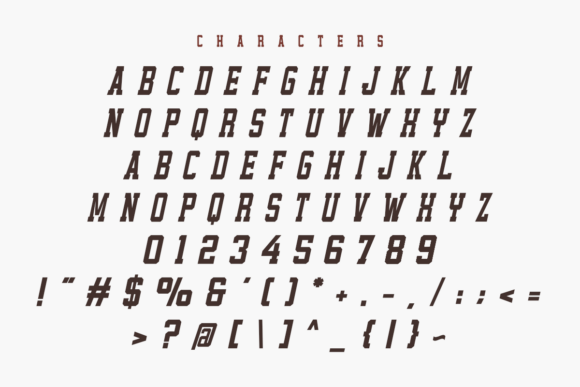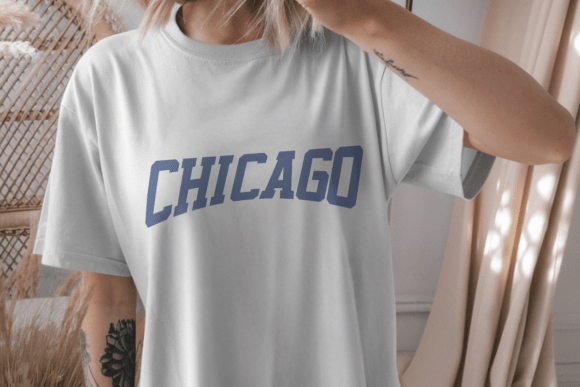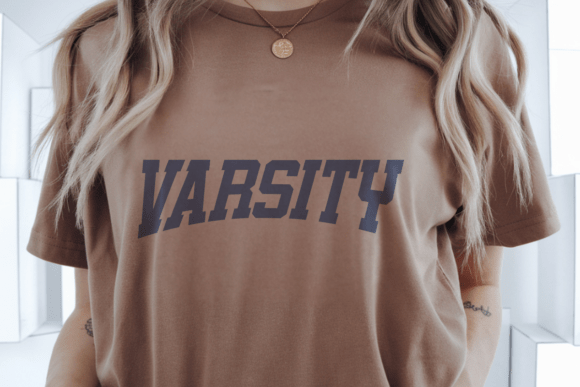
Athletic College Italic Font: Elevate Your Designs with a Classic Varsity Aesthetic
Are you a graphic designer or print on demand merchant looking for a font that embodies the spirit of university sports and team spirit? Look no further than the Athletic College Italic Font. This bold and powerful collegiate display font is designed to bring a classic varsity aesthetic to your modern creative projects. With its sturdy, blocky structure and clean lines, Athletic College excels in creating high-impact designs that command attention.
Key Features of Athletic College Italic Font
- Bold and Powerful Design: Athletic College is a statement font that makes a lasting impression. Its bold and powerful design is perfect for creating high-impact t-shirt designs, varsity jackets, sports jerseys, and spirit wear.
- Italic Style: The Athletic College font comes with an italic style, adding a touch of sophistication and elegance to your designs.
- Classic Varsity Aesthetic: This font captures the timeless spirit of university sports and team spirit, making it the perfect choice for designers and crafters who want to create nostalgic merchandise.
- Versatile Asset: Athletic College is not just limited to fashion. It’s a versatile asset that can be used for various craft projects, such as vinyl cutting with Cricut or Silhouette, personalized gift tags, and school event posters.
- Excellent Readability: The classic varsity style of Athletic College ensures excellent readability on both digital screens and print materials.
Athletic College Italic Font is perfect for graphic designers and print on demand merchants who specialize in custom apparel. With its sturdy, blocky structure and clean lines, this font excels in creating high-impact designs that command attention. Whether you’re building a professional brand identity for a fitness club or designing nostalgic merchandise for a local team, Athletic College provides the strength and clarity needed to make a lasting impression.
Use Cases for Athletic College Italic Font
- T-Shirt Designs: Create high-impact t-shirt designs that make a statement. Athletic College is perfect for designing custom apparel for sports teams, fitness clubs, and school events.
- Varsity Jackets and Sports Jerseys: Bring a classic varsity aesthetic to varsity jackets and sports jerseys with Athletic College. This font is perfect for creating bold and powerful designs that command attention.
- Vinyl Cutting and Craft Projects: Use Athletic College for vinyl cutting with Cricut or Silhouette, personalized gift tags, and school event posters. This font is a versatile asset that can be used for various craft projects.
- Digital Designs: Athletic College is not just limited to print materials. Use this font for digital designs, such as social media graphics, website headers, and email templates.
Why Choose Athletic College Italic Font?
There are many fonts available that claim to offer a classic varsity aesthetic, but Athletic College Italic Font stands out from the rest. Here are a few reasons why:
- Unique Design: Athletic College has a unique design that sets it apart from other fonts. Its sturdy, blocky structure and clean lines make it perfect for creating high-impact designs.
- Excellent Readability: The classic varsity style of Athletic College ensures excellent readability on both digital screens and print materials.
- Versatility: Athletic College is a versatile asset that can be used for various design projects, from fashion to craft projects.
| Author | Almairatype Studio |
Athletic College Italic Font is a bold and powerful collegiate display font that brings a classic varsity aesthetic to your modern creative projects. With its sturdy, blocky structure and clean lines, this font excels in creating high-impact designs that command attention. Whether you’re a graphic designer or print on demand merchant, Athletic College is the perfect choice for creating custom apparel, craft projects, and digital designs. Its classic varsity style ensures excellent readability on both digital screens and print materials, making it a versatile asset for any design project.